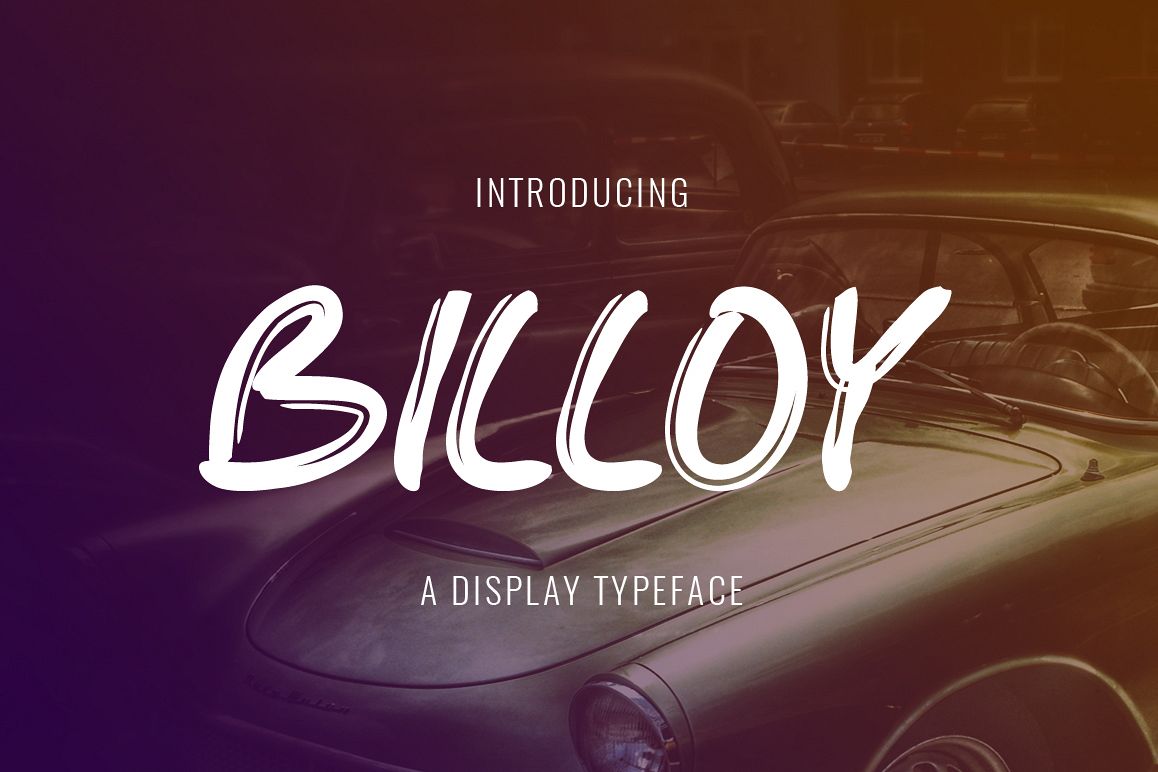
Introducing Billoy!
Billoy is a fresh & modern font. Billoy is perfectly suited to stationery, logos, t-shirt, paper, print design, website header, photo frame, flyer, music cover, poster, image slider and much more.